Behind the scenes of our new digital playground for FS Untitled
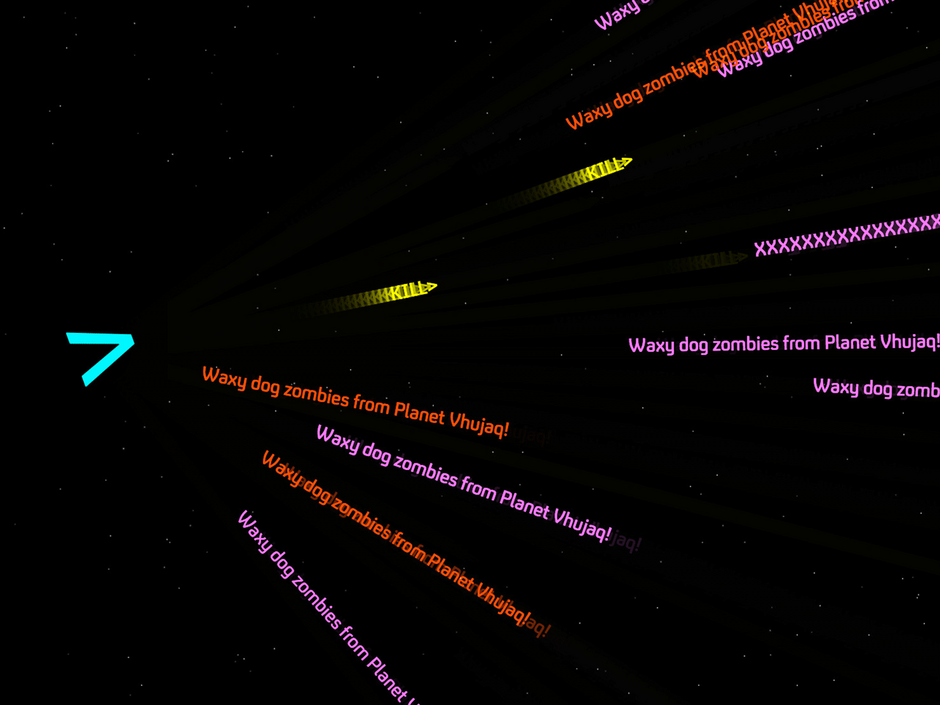
For our launch of FS Untitled® we published an interactive ‘digital playground’ to let designers explore the typeface in more detail. This was a completely new approach for Fontsmith and something very different from the usual type specimen sheets.
‘The Space Between created code-based animations for the FS Silas launch in 2015, so we asked them to come up with a concept for the launch of our new typeface. Founder Matt Rudd had worked with us on the original incarnation of the font for Channel 4 back in 2005, so it was a bit like getting the band back together.’
‘I wanted to digitally showcase the flexibility of the typeface with its 12 weights and italics with a beautiful online asset that would grab the attention of designers and developers alike and encourage them to engage. I knew Matt and Steve were the right people to work with, their concept for the digital playground was perfect. It was this thinking outside the box that we were after, it was so different to how we normally do things by characterising our fonts with a name, and that was exciting.’
‘Rather than design predictable specimen sheets, we wanted to create an exciting digital playground where people could explore the typeface in depth. Above all, the playground needed to show the timeless beauty and flexibility of the typeface in a new way, so we worked hard to create many kinds of typographic execution and interactivity. For example, FS Zombie is a fully-functioning arcade game and FS Alchemist takes the user from ‘LEAD’ to ‘GOLD’ via every letter in the alphabet.’
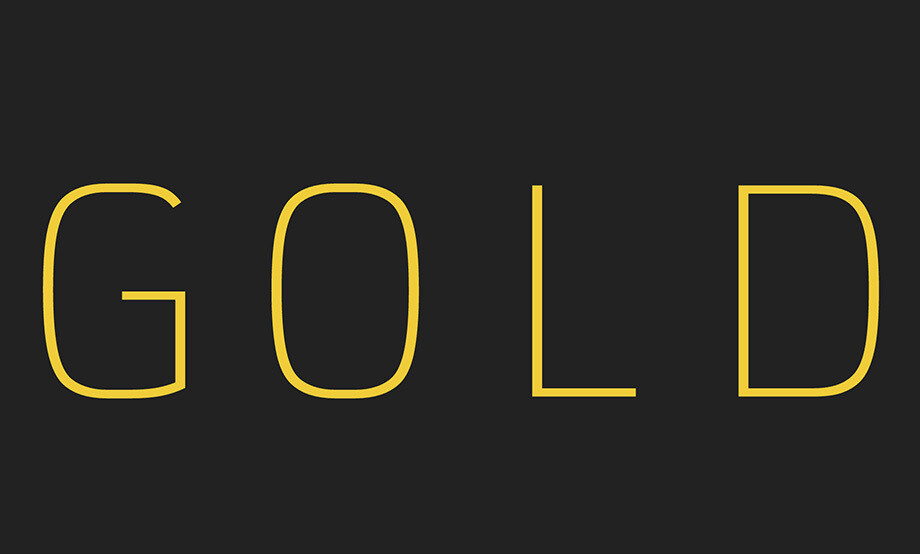
‘With ‘FS Untitled’ as the core of our idea, we invented four names for every weight. For the lightest weights, we came up with names like FS Invisible, FS Ghost and FS Butterfly, and at the heaviest end, FS Shout, FS Boom and FS Apocalypse. For each of these names, we designed and built an interactive scene.’
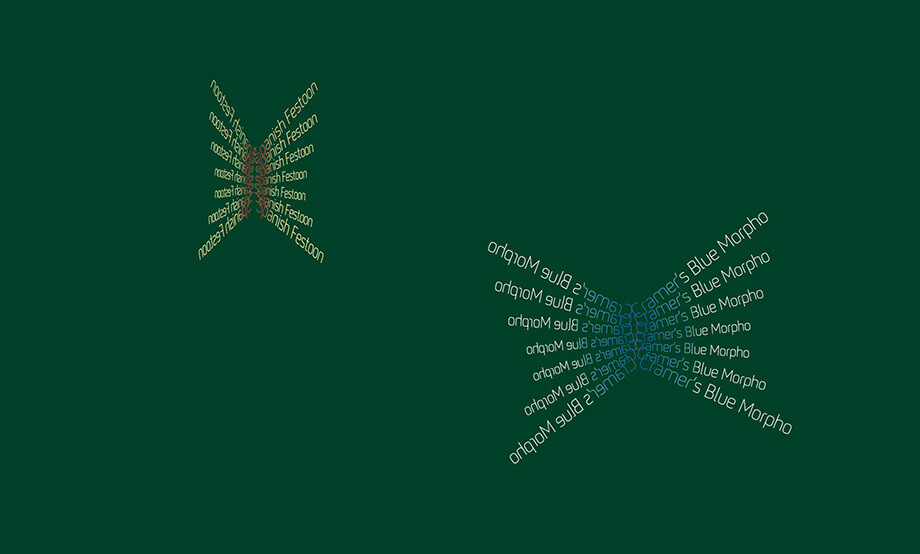
‘It starts with a grid containing all 48 imagined names as cells which light up when you touch them. If you click a cell, it takes you into that scene, or you can move around the grid using the arrow keys and toggle between roman and italic by pressing ‘i’. We also created an interactive specimen sheet on the bottom row of the grid, where you can explore all 12 weights and smoothly scale from tiny type to massive cropped characters in one seamless move. I think that’s my favourite feature, actually.’
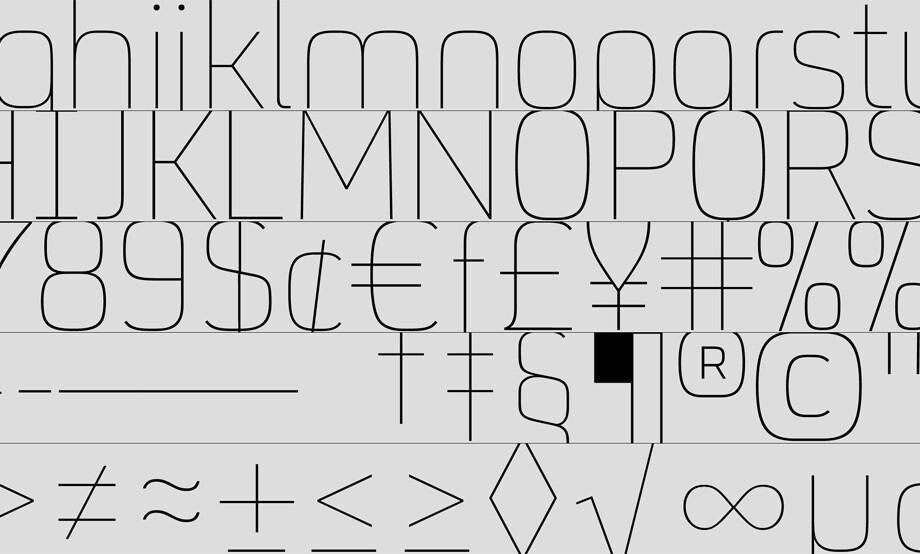
‘Each scene has a unique URL so people can share their favourites on Facebook, Twitter or via email. The playground can also be embedded directly on web pages and blogs, meaning there is no need to visit the website to enjoy the experience.
48 unique interactive scenes to design and build. Ambitious? No, sheer madness…’